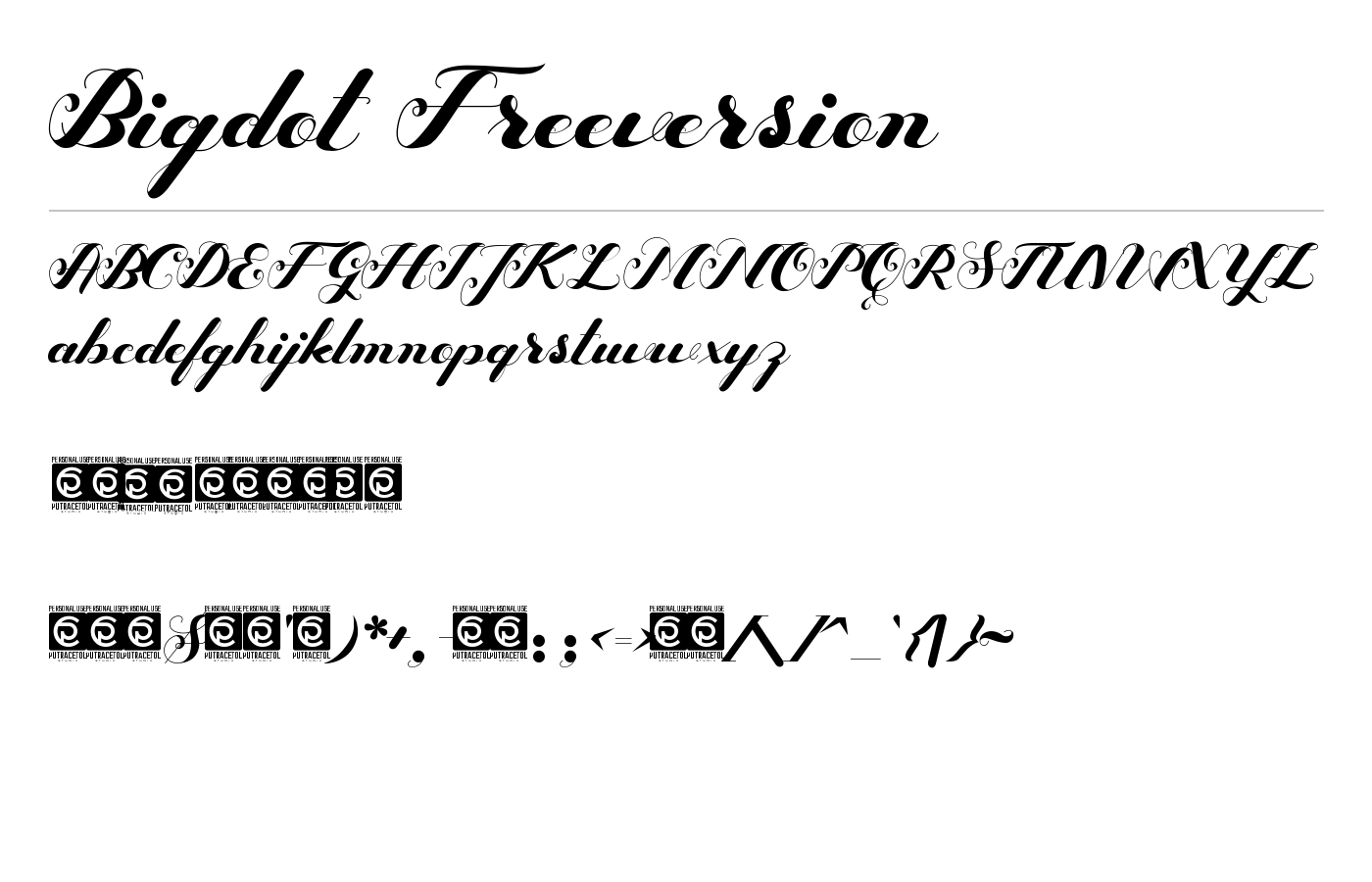
Bigdot is an elegant script font that combines bold, smooth strokes with delicate, swirling flourishes, creating a sophisticated and stylish appearance. Its high contrast between thick and thin lines and cursive letterforms make it perfect for luxury branding, invitations, and decorative headlines where a touch of refinement is desired. This font stands out in designs seeking a graceful yet impactful personality.
Bigdot Font
About Bigdot Font